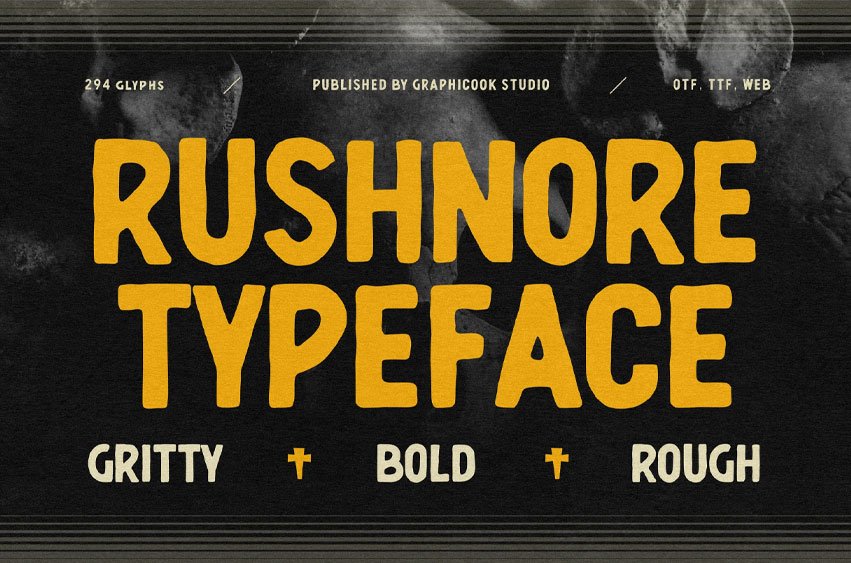
Rushnore Font is a bold font with a rough, untidy appearance that highlights its raw, expressive character. Perfect for horror, Halloween, or retro-themed designs that need a gritty and impactful style.
It is perfect for headlines, logotypes, magazines, packaging, quotes, movies, games, cover albums, book covers, and flyers. It’s a perfect solution for creating eye-catching designs that stand out in any context.